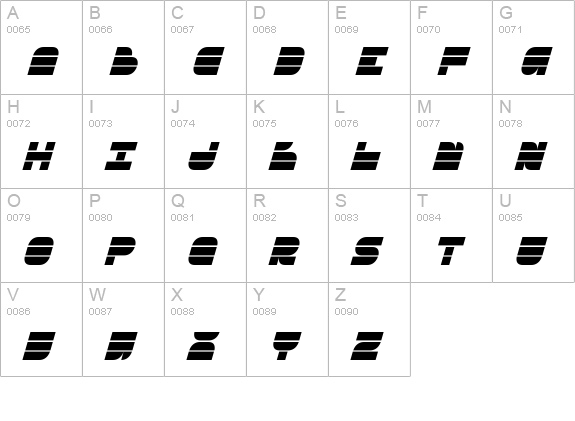
Breakbeat BTN Oblique is a distinctive, italic variant in the Breakbeat typeface family \xE2\x80\x94 well suited to design and typography projects.
Breakbeat BTN Oblique font is a modern and dynamic typeface that exudes energy and creativity. Its bold and slanted characters give it a unique edge, making it perfect for projects that require a touch of urban flair. The font's breakbeat-inspired design sets it apart from traditional typefaces, making it a great choice for music-related designs, posters, and branding materials. One of the best features of Breakbeat BTN Oblique font is that it is available for free download at FontsMarket.com. This means that you can easily access this stylish and versatile font without any cost, making it a valuable addition to your font collection. Whether you're a designer looking to add some pizzazz to your projects or a creative individual in need of a fresh font for personal use, Breakbeat BTN Oblique font is a fantastic choice that won't break the bank. Download it today and start adding a bold and contemporary touch to your designs.